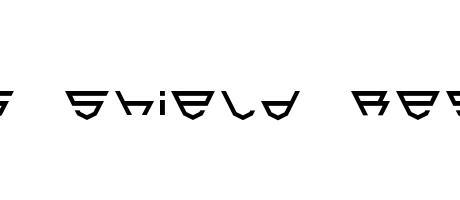
HTML5 Shield
By netgoblin
HTML5 Shield Regular is a bold, geometric sans-serif typeface. Its characters are composed of sharp angles and strong, clean lines, giving it a futuristic and somewhat aggressive feel. The letterforms are unique, with distinctive arrow-like structures incorporated into the design, hinting at a protective or technological theme.